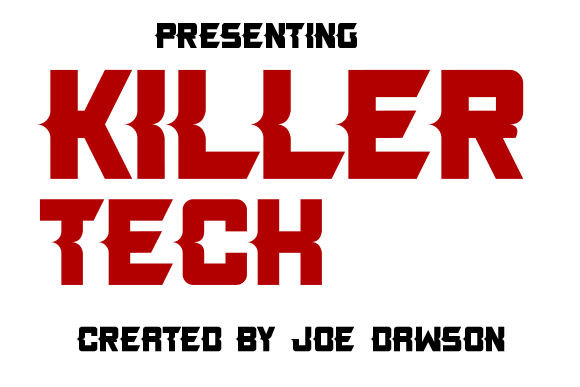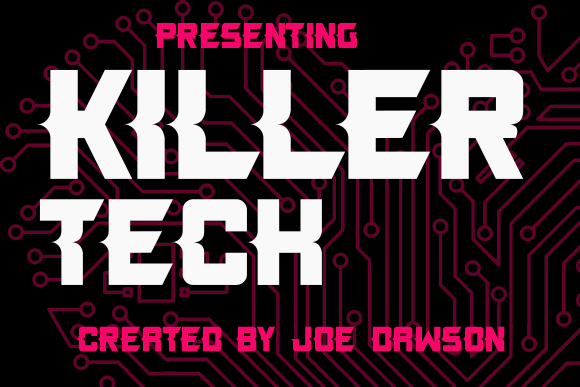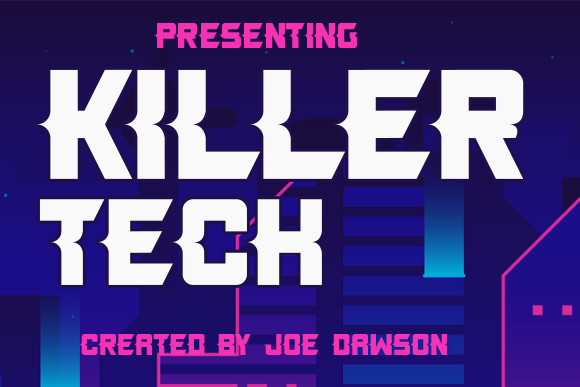
Introduction to Killer Tech Font
Killer Tech is a cool, bold and dynamic display font.
This font is ideal for writing web designs, business cards, or pretty much anything else that requires a unique touch .
Killer Tech Font offers exceptional quality and versatility, making it a valuable addition to your design toolkit. Whether you’re creating for personal projects or commercial use, Killer Tech Font delivers professional results.